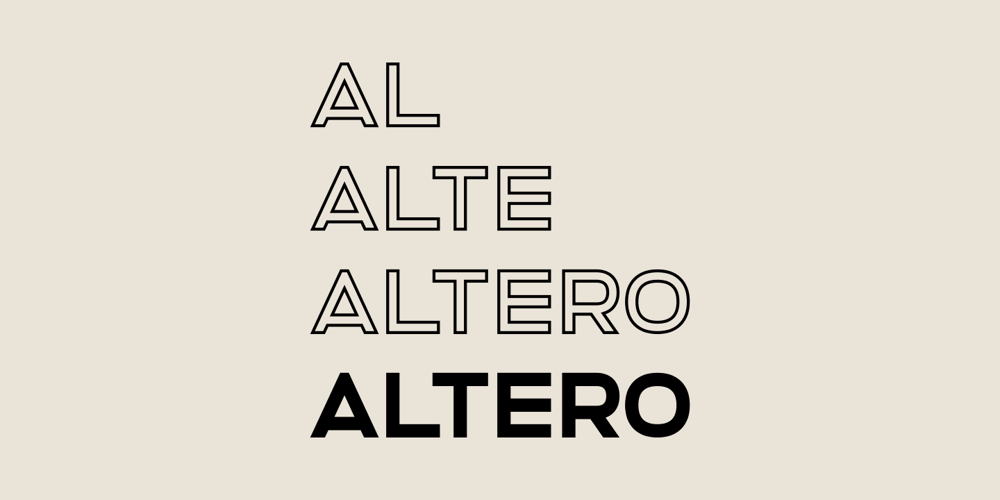
Altero Font Family was designed by Stefano Giliberti and published by Stefano Giliberti. Altero contains 4 styles and family package options. Altero is a font family for larger-than-life words. It supports 112 languages, features a total of 334 glyphs and includes an italicized version.